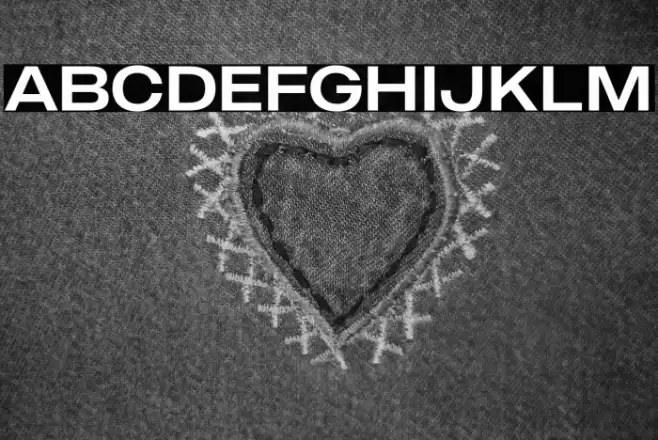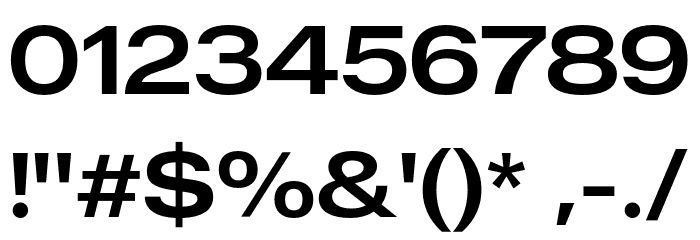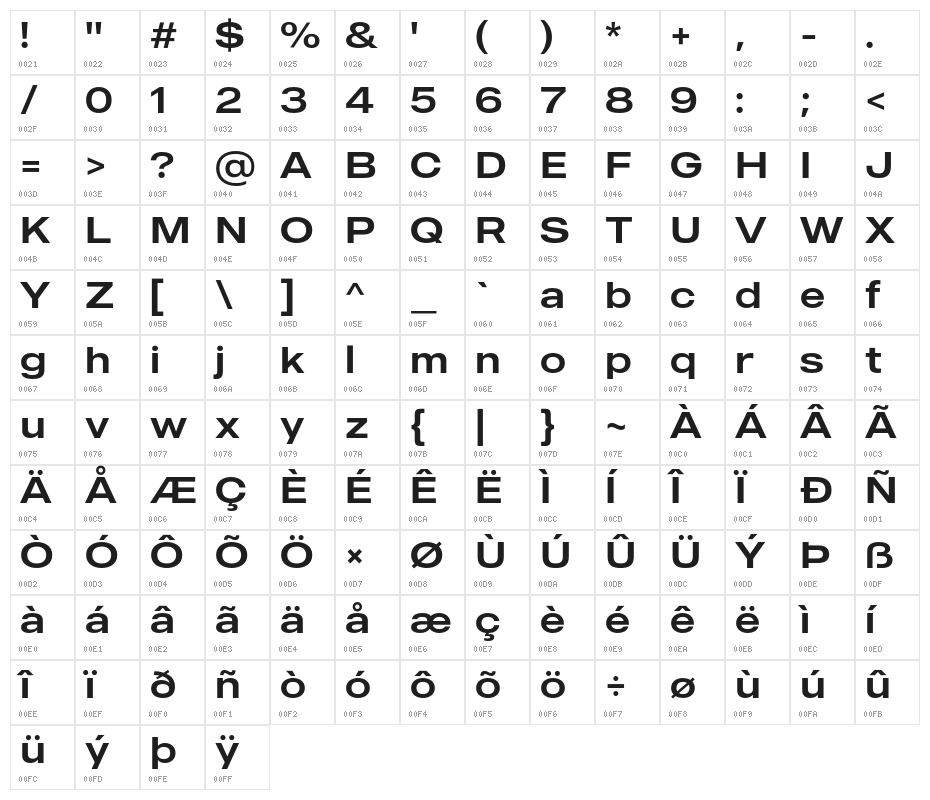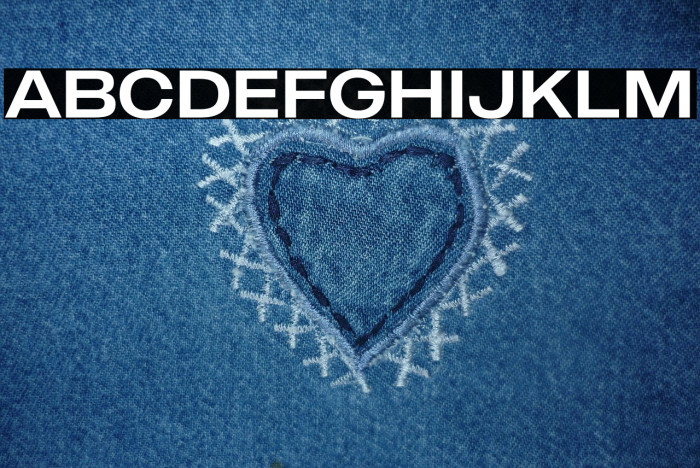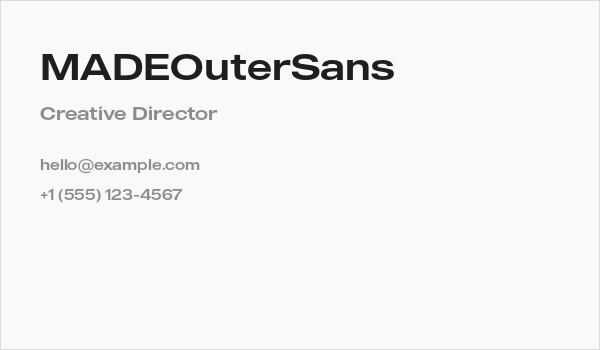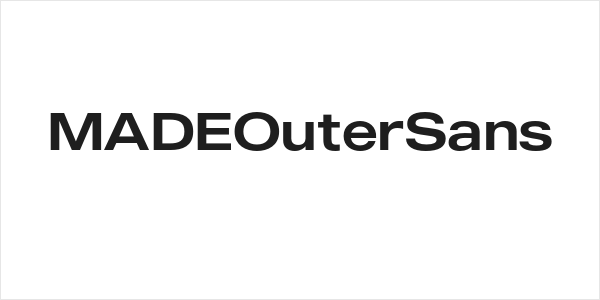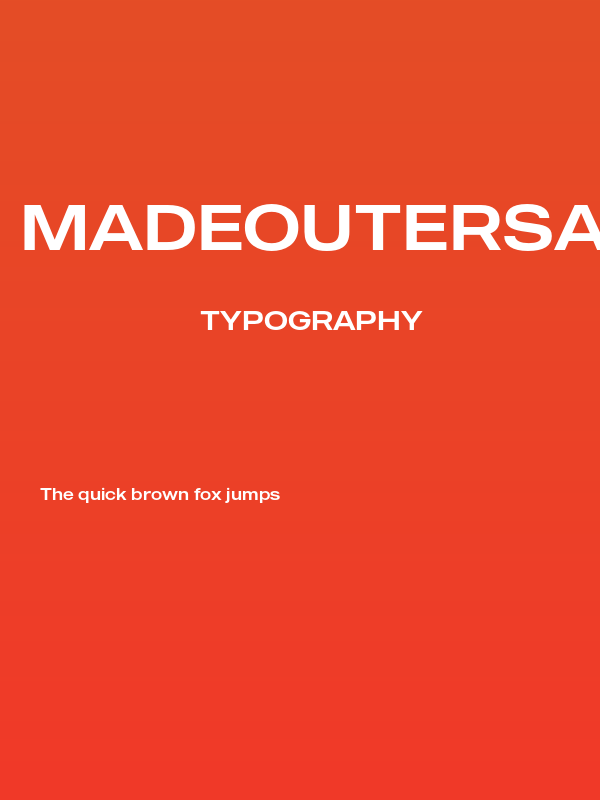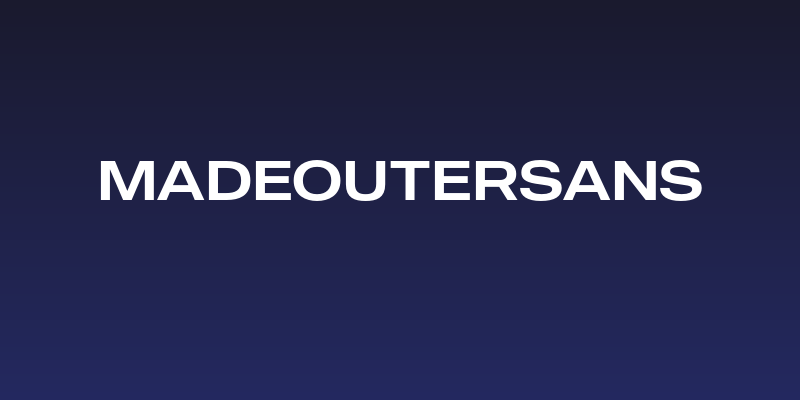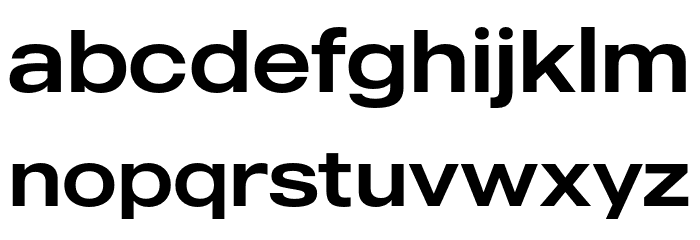
MADEOuterSans Font
MADEOuterSans Description
This font features a clean and modern sans-serif design, characterized by its bold and uniform stroke width. The letters are well-balanced with a geometric structure, offering a contemporary and professional appearance. The uppercase and lowercase letters maintain a consistent style, with rounded edges that soften the overall look. The numerals are clear and legible, making them suitable for various applications. Special characters are included, providing versatility for different types of content. The font's simplicity and clarity make it ideal for digital and print media, ensuring readability across different sizes and formats.
A modern, bold sans-serif font with a clean and geometric design from Uncategorized fonts.
- Proposed Projects: Ideal for branding, advertising, web design, and editorial projects where a modern and professional look is desired.
- Use Case: Headlines, Logos, Digital media